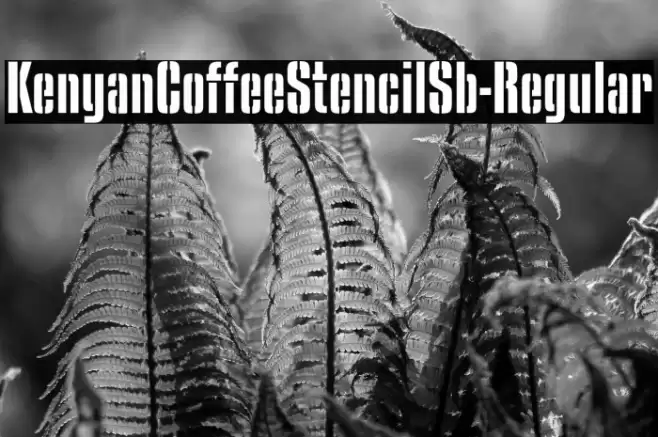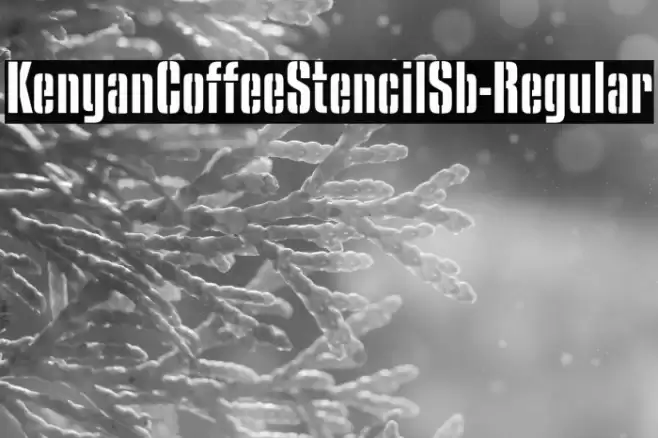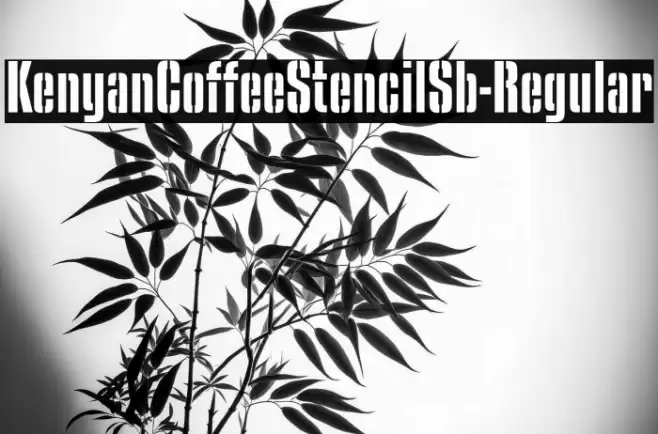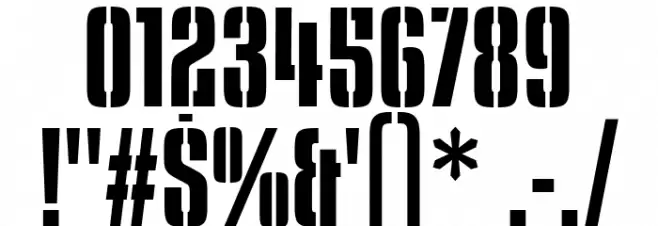
KenyanCoffeeStencilSb-Regular Font
KenyanCoffeeStencilSb-Regular Description
This font features a bold, stencil-like design with strong geometric shapes and high contrast between thick and thin strokes. The uppercase and lowercase letters maintain a consistent width, giving the font a uniform appearance. The characters are tightly spaced, enhancing the compact and impactful look. The font's unique cut-out style in the letters adds a modern and industrial feel, making it suitable for attention-grabbing designs. The numerals and special characters follow the same bold and structured aesthetic, ensuring consistency across all text elements.
A bold, stencil-style font with high contrast and geometric shapes from Regular fonts.
- Proposed Projects: Ideal for posters, signage, branding, and any project requiring a strong, industrial aesthetic.
- Character Spacing: Tight